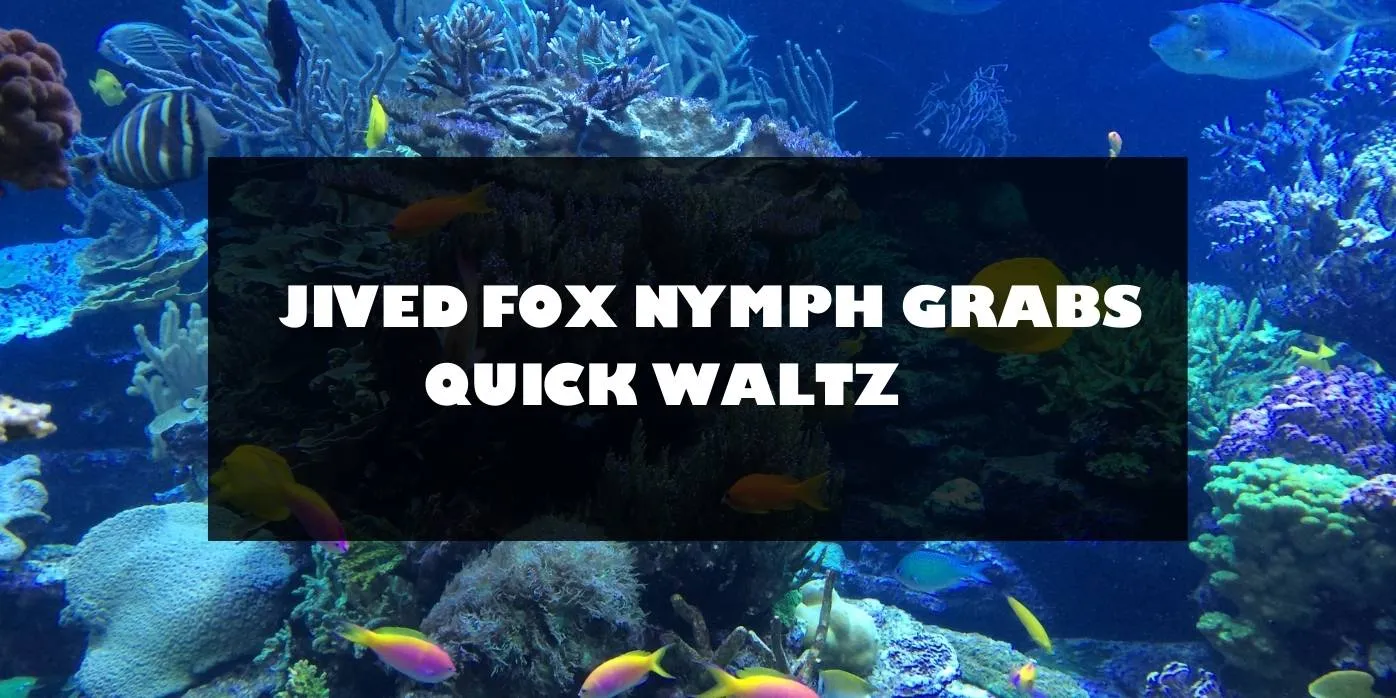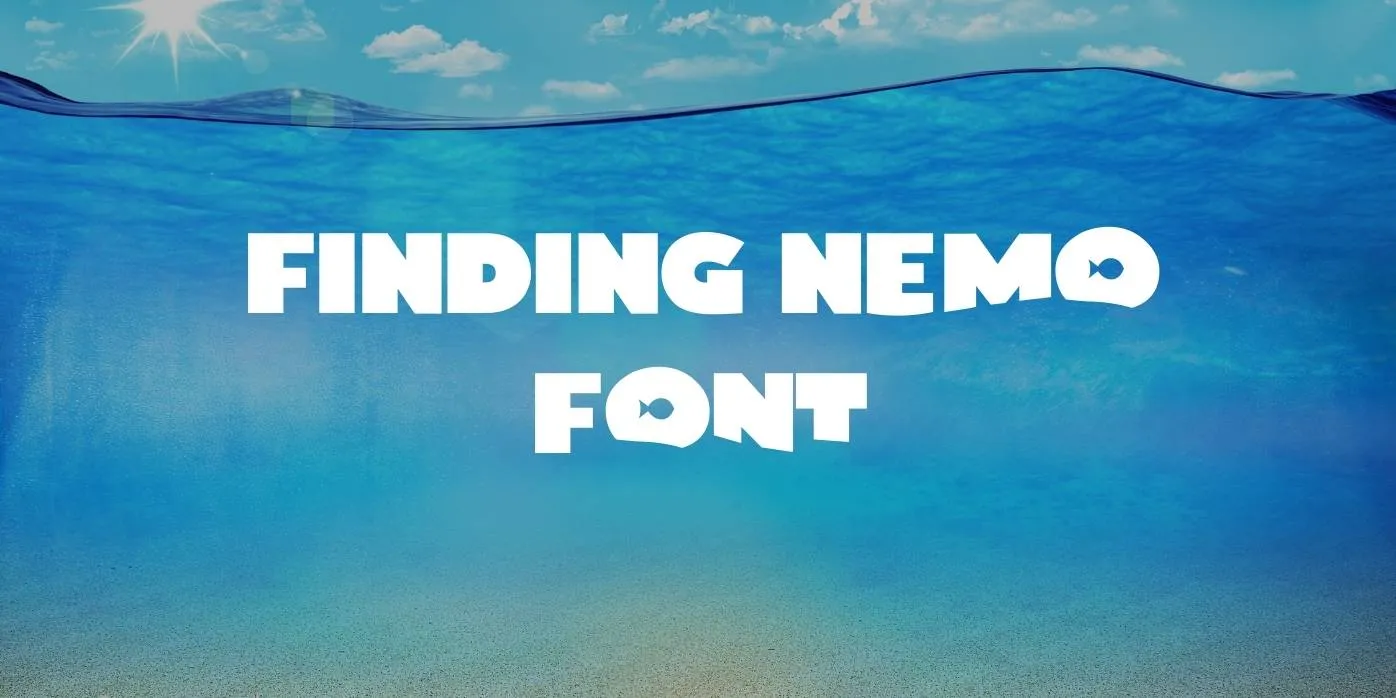
Finding Nemo Font
Finding Nemo Font is a very famous and stylish typeface that was designed by Films Fonts. This stunning typeface belongs to the Fancy font family. It was first released on 30th May 2003. This beautiful font has been widely used in various design projects.
Finding Nemo Font is an ornamental typeface that comes with a unique and stylish design. This typeface is perfect for creating eye-catching and attention-grabbing designs. This cute font family consists of 4 different styles. These styles include Regular, Italic, Bold, and Bold Italic.